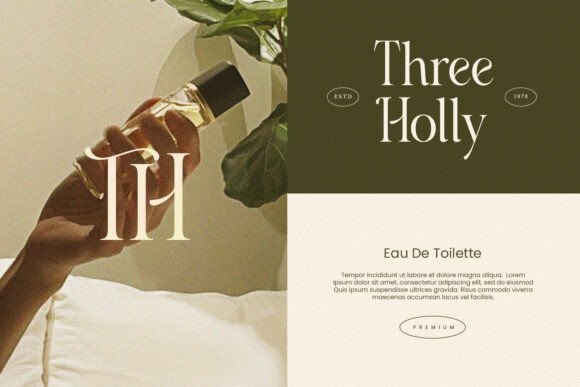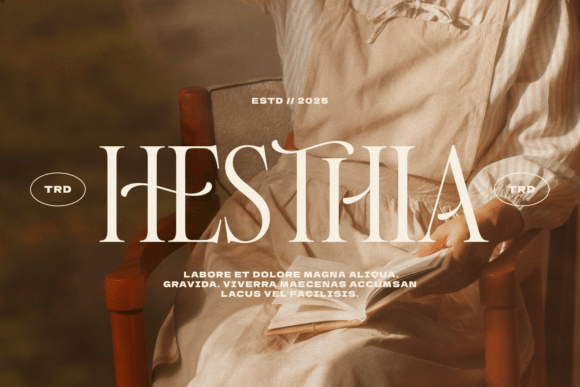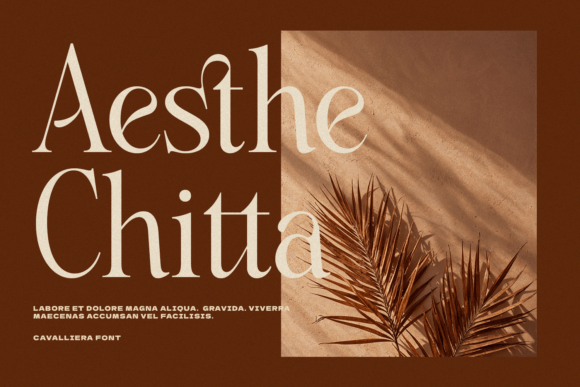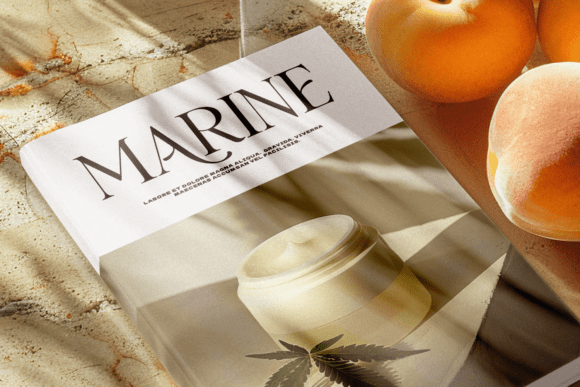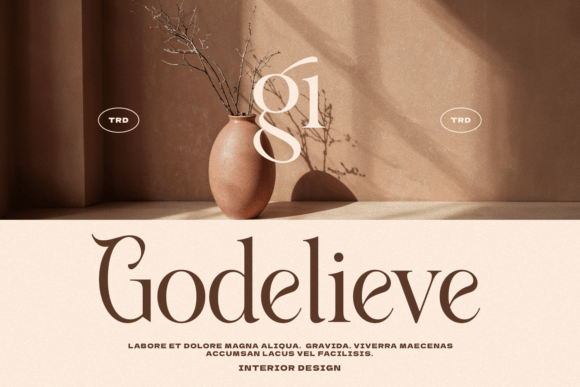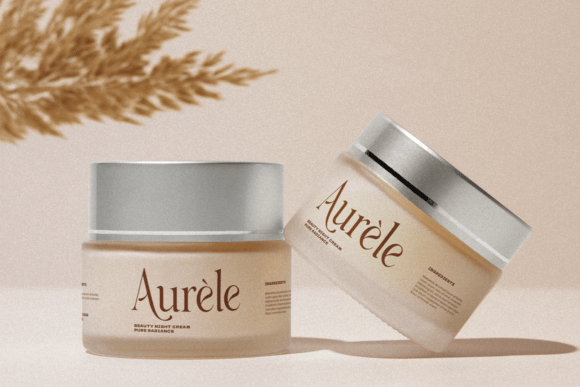
Introducing Cavalliera Font: Elevate Your Typography with Elegance and Sophistication
In the world of typography, a well-crafted font can make all the difference in elevating your design projects from ordinary to extraordinary. If you’re a designer, craftsperson, or simply someone who appreciates the art of beautiful typography, you’re in luck. Say hello to Cavalliera Font, a stunning serif font that embodies elegance, beauty, and refinement in every letterform.
A Masterclass in Elegance and Sophistication
Cavalliera is more than just a font – it’s an experience. Designed with meticulous attention to detail, this gorgeous serif font is sure to captivate your audience with its timeless charm and sophistication. Whether you’re working on branding, editorial, wedding designs, or high-end packaging, Cavalliera brings a level of refinement and aesthetic appeal that’s hard to match.
What Sets Cavalliera Apart?
So, what makes Cavalliera Font so special? For starters, its wide range of alternate characters and stylish ligatures allow you to add a touch of personality and whimsy to your typography. With Cavalliera, you can create unique and eye-catching designs that reflect your brand’s voice and style.
Here are just a few features that make Cavalliera a standout font:
• Alternate Characters: With a wide range of alternate characters to choose from, you can mix and match to create a truly one-of-a-kind look.
• Stylish Ligatures: Add a touch of elegance and sophistication to your typography with Cavalliera’s beautiful ligatures.
• Serif Design: Cavalliera’s classic serif design ensures that your typography is always legible and refined.
Cavalliera Font is incredibly versatile, making it perfect for a wide range of design projects. Here are just a few ideas to get you started:
• Branding: Create a lasting impression with Cavalliera’s elegant and sophisticated typography.
• Editorial Design: Add a touch of refinement and class to your publications with Cavalliera’s beautiful serif design.
• Wedding Designs: Make your wedding stationery, invitations, and decorations truly unforgettable with Cavalliera’s romantic and elegant typography.
• High-End Packaging: Elevate your luxury packaging with Cavalliera’s sophisticated and refined design.
Why Choose Cavalliera Font?
With so many fonts to choose from, why should you choose Cavalliera? Here are just a few reasons why designers and craftspersons are falling in love with this gorgeous serif font:
• Timeless Elegance: Cavalliera’s classic design ensures that your typography will never go out of style.
• Versatility: Whether you’re working on a branding project or a wedding design, Cavalliera is the perfect choice.
• Attention to Detail: With its wide range of alternate characters and ligatures, Cavalliera allows you to add a level of detail and sophistication to your typography.
In conclusion, Cavalliera Font is a stunning serif font that is sure to elevate your design projects to new heights. With its elegant and sophisticated design, wide range of alternate characters and ligatures, and versatility, Cavalliera is the perfect choice for designers and craftspersons who appreciate beautiful typography. So why wait? Discover the beauty and refinement of Cavalliera Font today and take your typography to the next level.